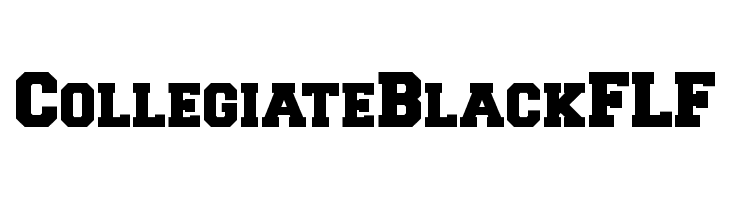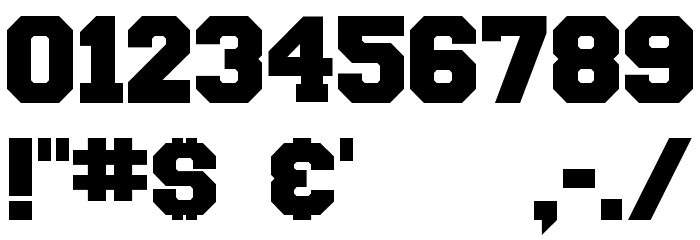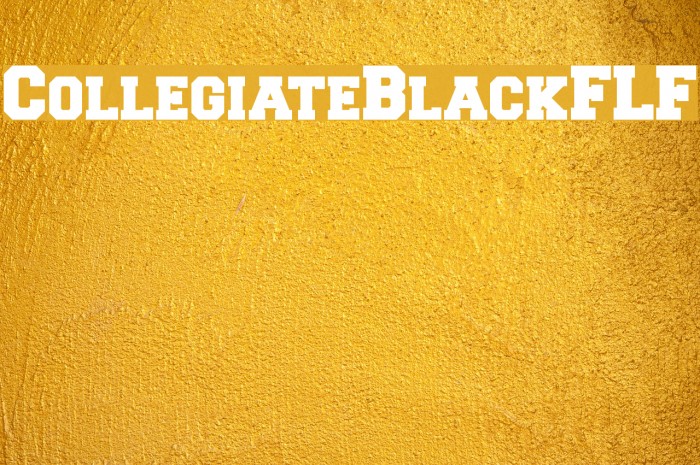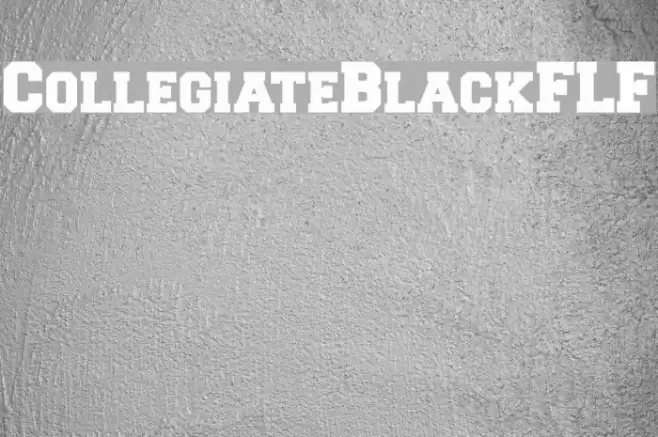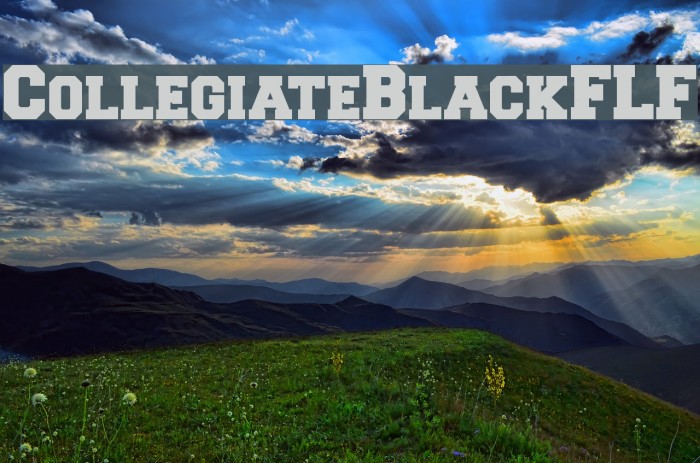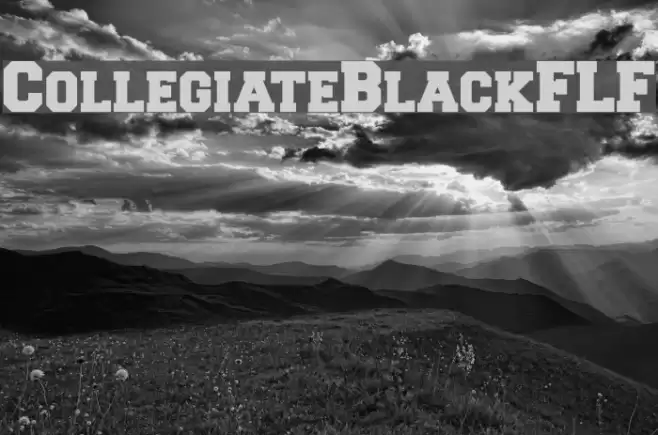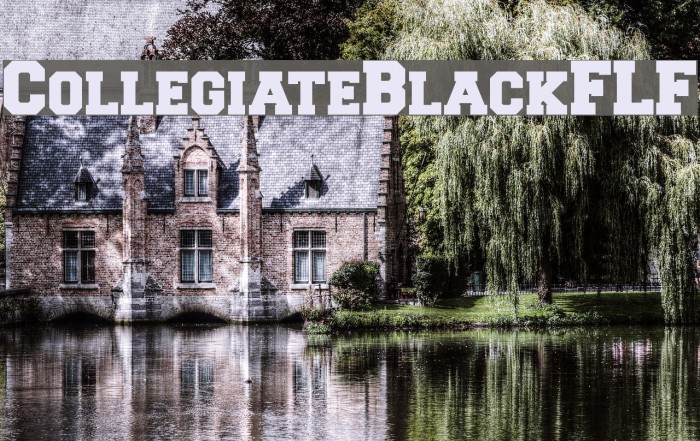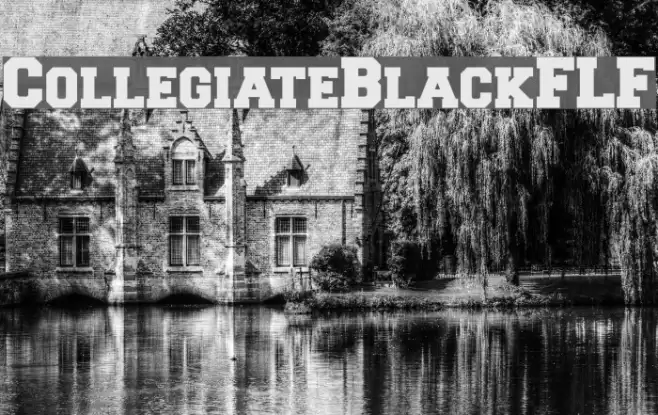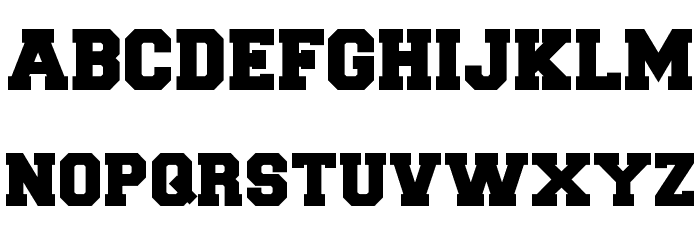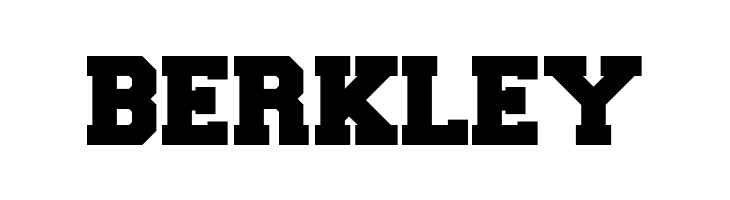
CollegiateBlackFLF Font
CollegiateBlackFLF Description
This font features a bold, impactful design with strong, block-like characters that convey a sense of strength and authority. The uppercase letters are particularly prominent, with thick strokes and a uniform width that create a cohesive and powerful appearance. The numbers and special characters maintain this bold aesthetic, ensuring consistency across all elements. The font's style is reminiscent of traditional collegiate or varsity lettering, often associated with sports teams and academic institutions. Its boldness and clarity make it highly legible, even from a distance, making it ideal for attention-grabbing headlines and signage.
| Overall Style | Classic |
| Use Case | Headlines, Logos, Signage |
| Proposed Projects | Ideal for sports team branding, university merchandise, event posters, and any project requiring a strong, authoritative typeface. |